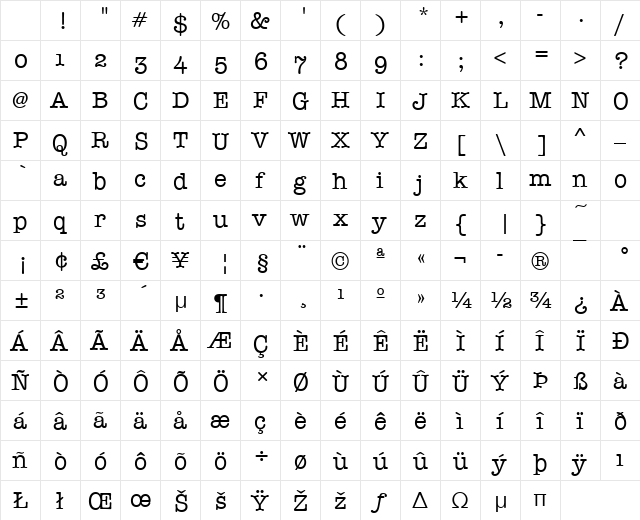
Complete Typewriter-Osf Regular glyph index. Displaying only characters natively supported by Typewriter-Osf Regular font.
Typewriter-Osf uses fixed-width spacing throughout, giving it the structured, systematic character associated with coding environments and technical documentation.